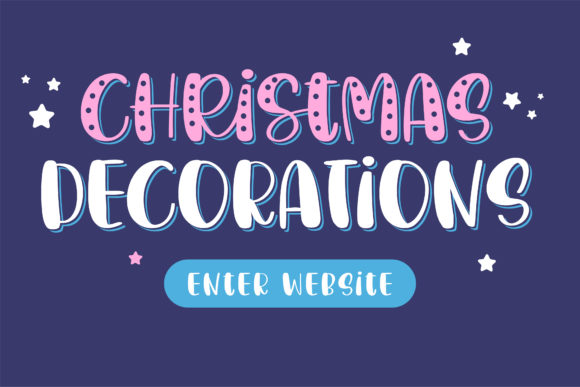
Christmas Decorations Font Font
Christmas Decorations is an adorable handwritten font. Its natural and unique style makes it incredibly fitting to a large pool of designs. The only limit is your imagination!